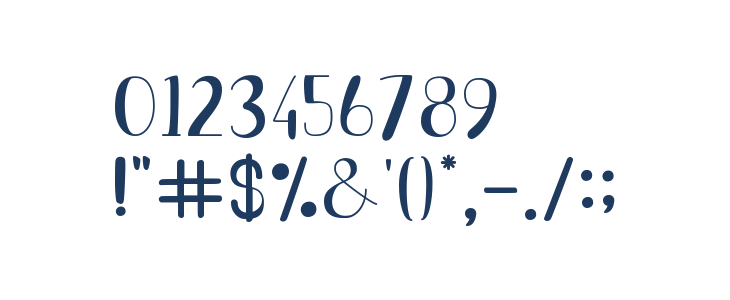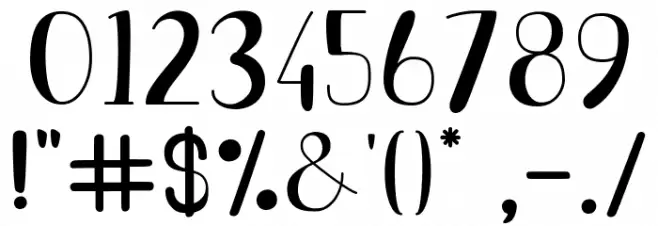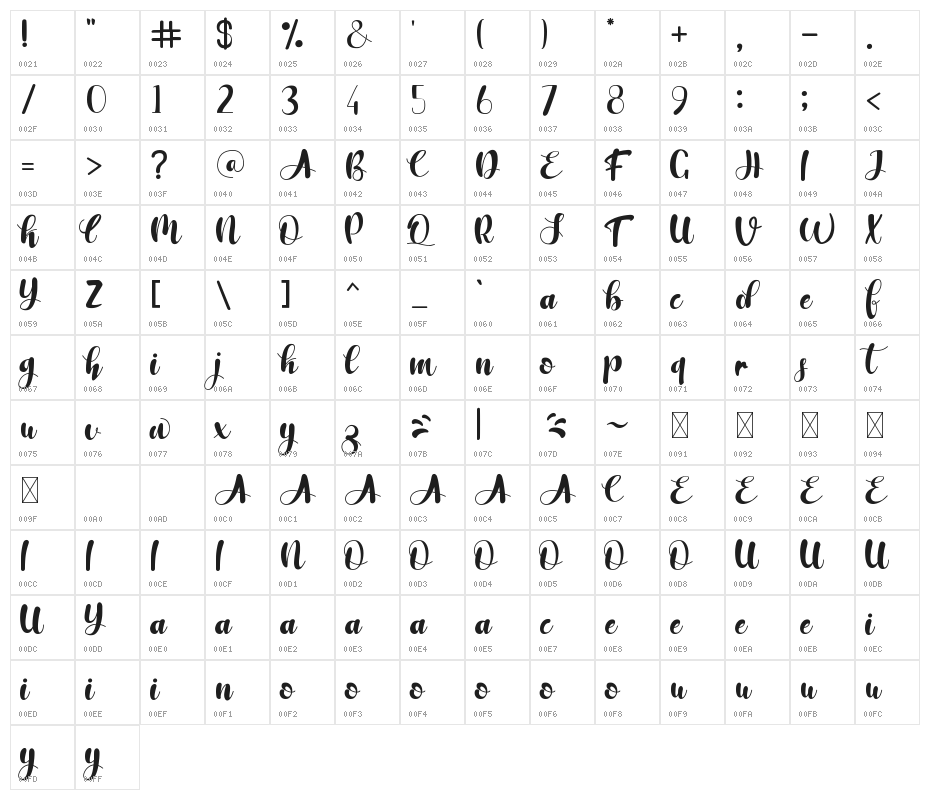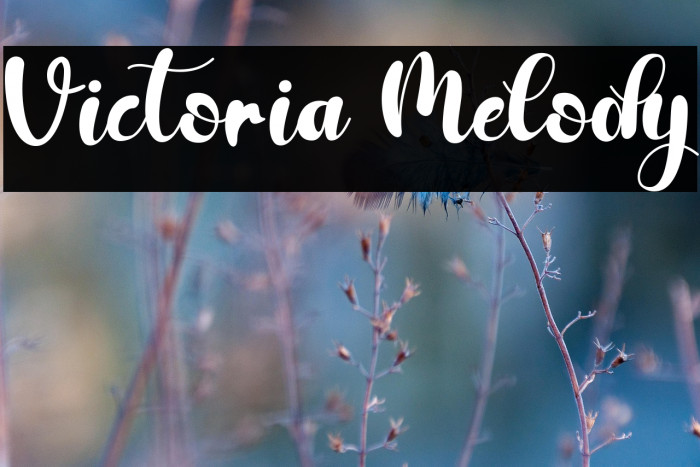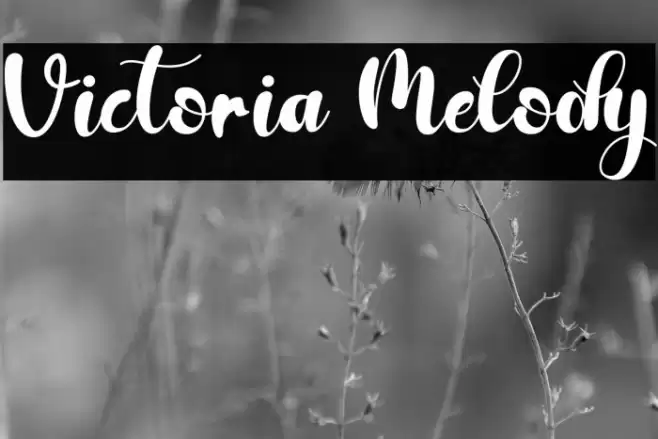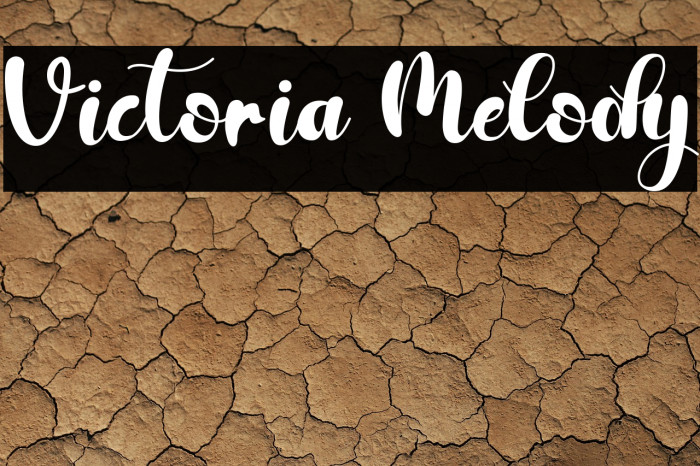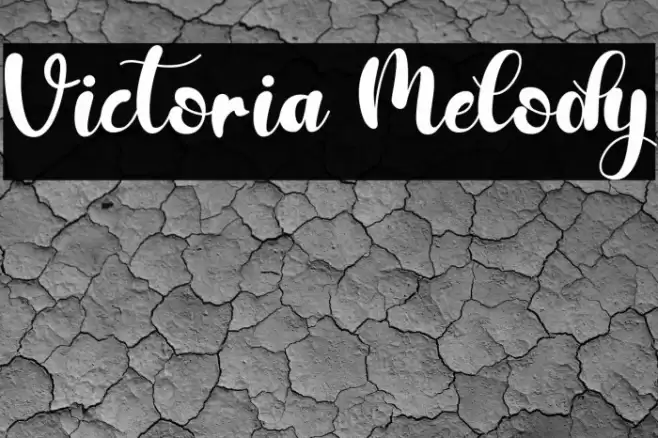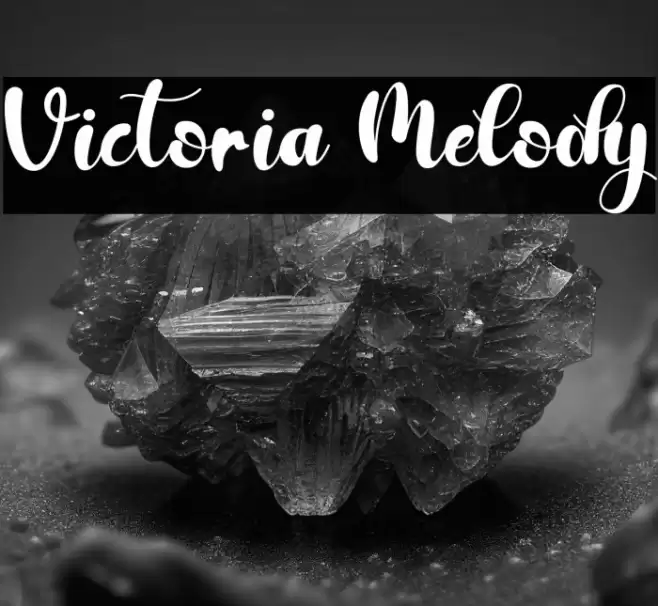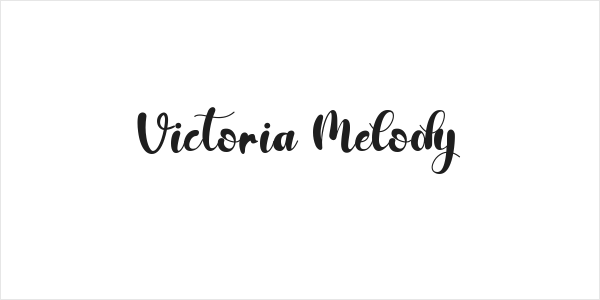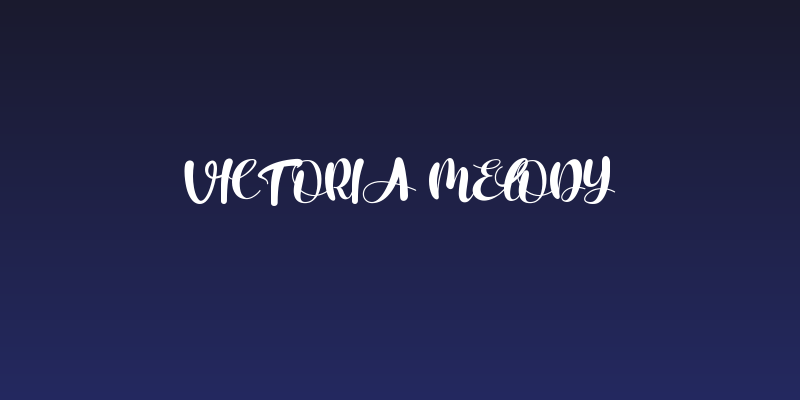
Victoria Melody Font
Victoria Melody Description
This font features an elegant, flowing script style with a modern touch. The letters are interconnected with smooth, sweeping curves, giving it a graceful and sophisticated appearance. The uppercase letters are particularly ornate, with elaborate swashes and loops that add a decorative flair. The lowercase letters maintain a consistent style, with rounded forms and a slightly playful character. The numerals are bold and clear, ensuring readability, while the special characters are designed to complement the overall aesthetic. This font exudes a sense of elegance and charm, making it suitable for a variety of creative projects.